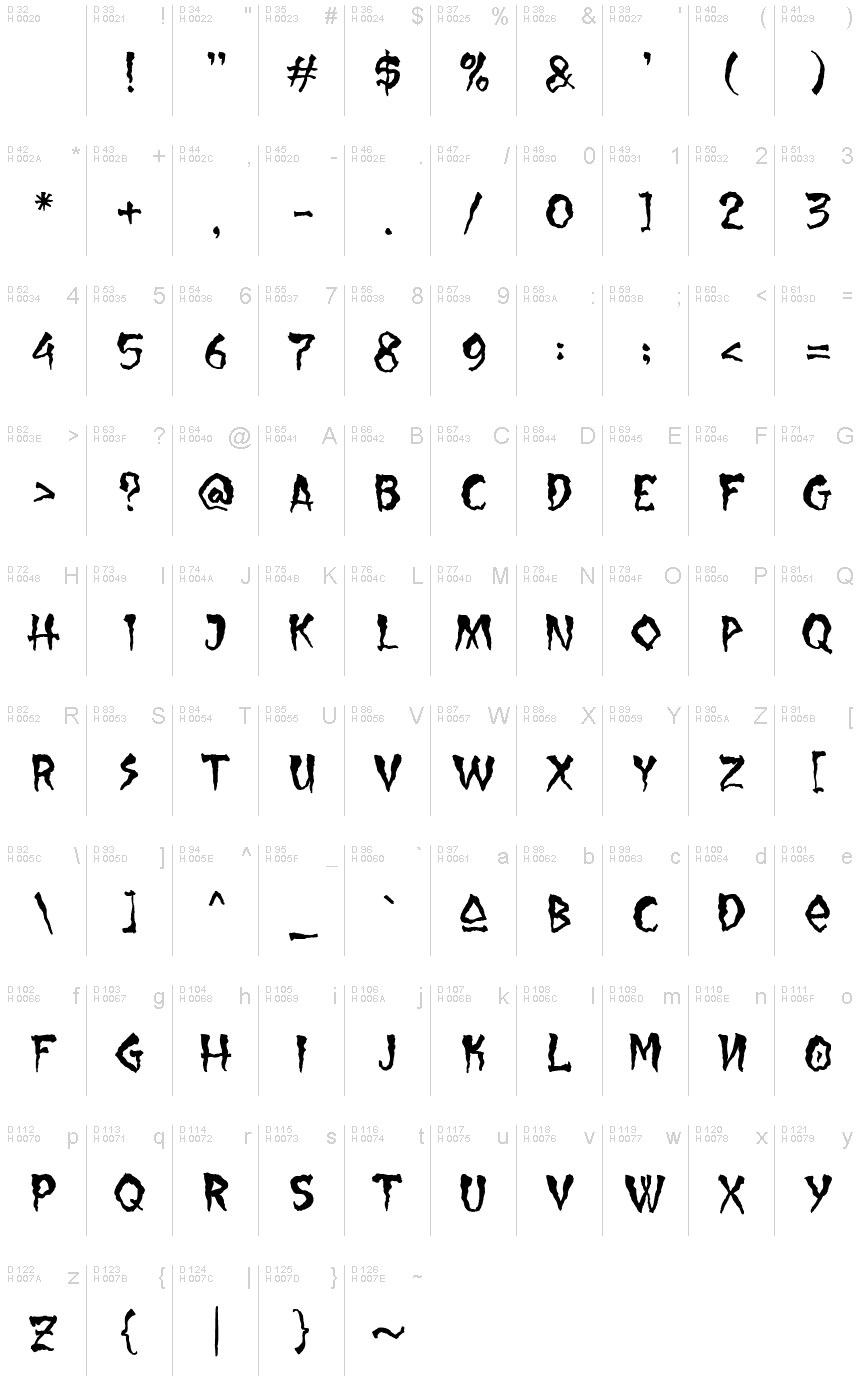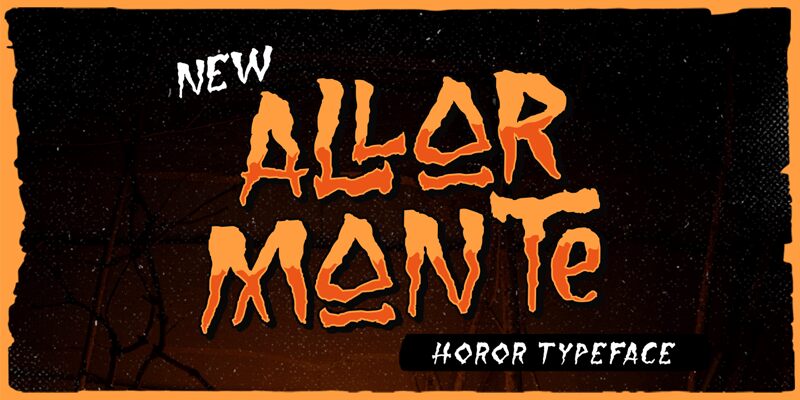
Introducing Allarmante, a display font designed by Letterhend Studio that will send shivers down your spine. With its bold and scary style, this font is perfect for projects that require a touch of horror and suspense. It's ideal for creating eye-catching titles, headlines, posters, and logos that demand attention. Whether you're working on a Halloween-themed project or want to add some eerie vibes to your brand identity, Allarmante has got you covered. So don't be afraid to dive into the dark side of design with this bone-chilling font!